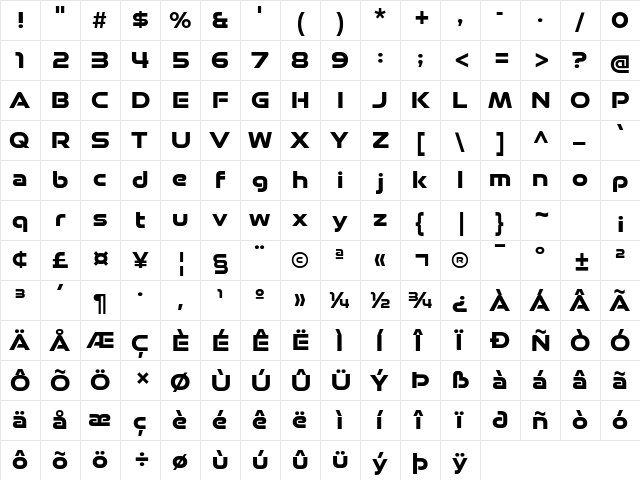
Good Timing Bold
Design Context for Good Timing Typeface
Good Timing is a composed and adaptable typeface that performs quietly and consistently across a wide range of design contexts. The heavy weight commands attention and anchors typographic hierarchies.